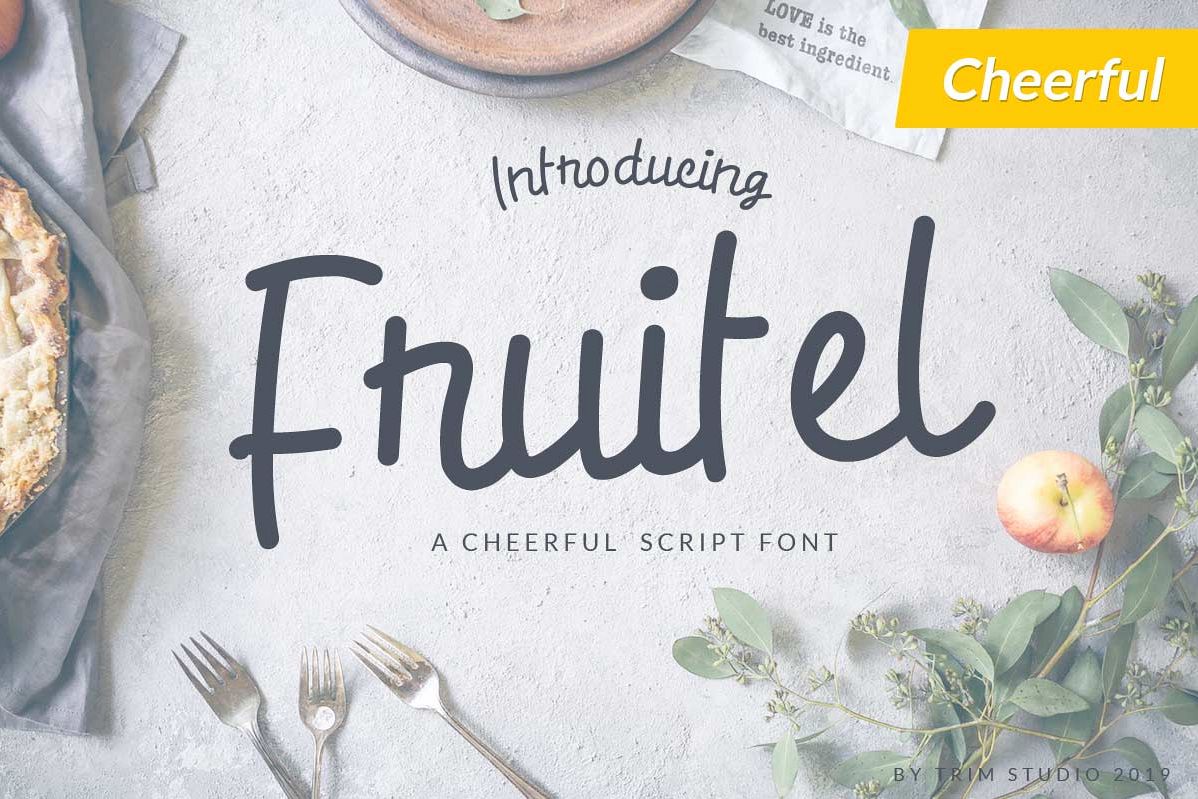
Fruitel - Kids Script
Fruitel
Fruitel is simple playful script. Turn many design project into unique looks. it suites for easter day, holiday, and much more !